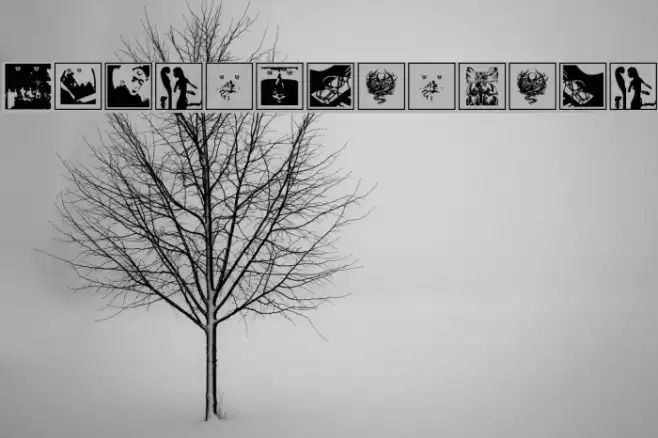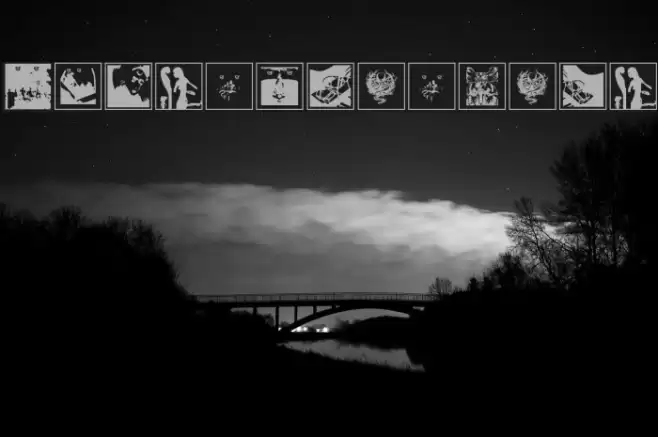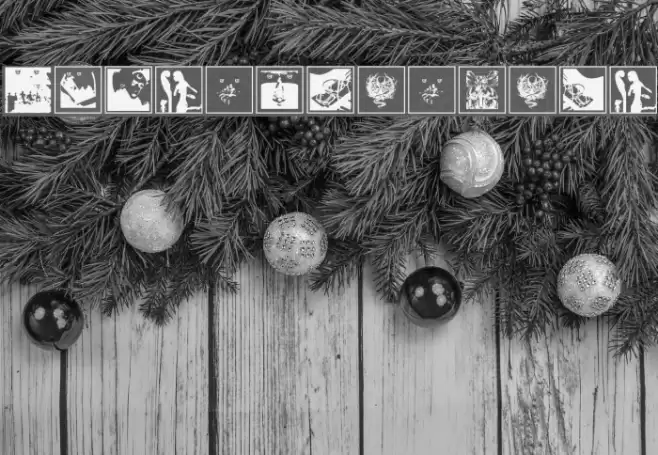
ModernGarbage Font
ModernGarbage Description
A highly decorative and illustrative font composed of complex, abstract, and surreal black-and-white images for each character, resembling graphic art or collage rather than traditional letterforms.
An abstract, illustrative display font with unique graphic images for each character from Uncategorized fonts.
- Proposed Projects: Album covers, avant-garde posters, experimental zines, art installations, alternative branding.
- Overall Style: Decorative, Abstract, Surreal
- Use Case: Logos, Posters, Artistic projects, Headlines